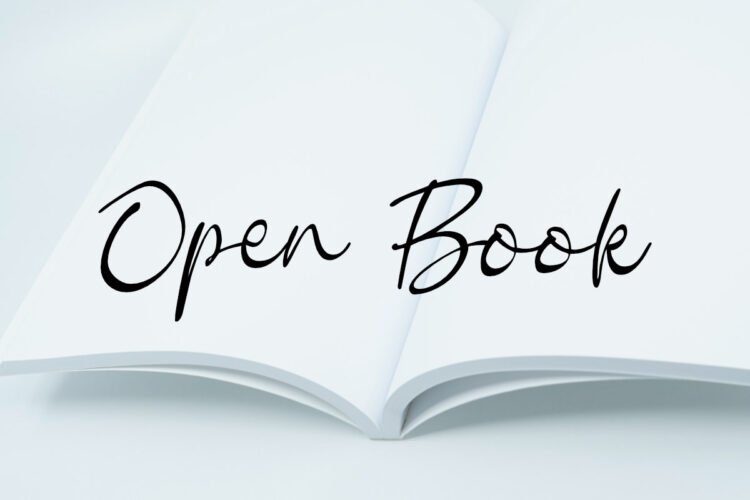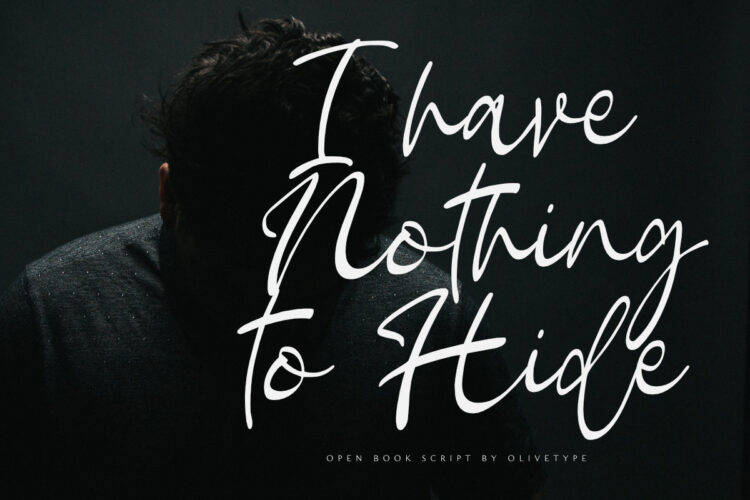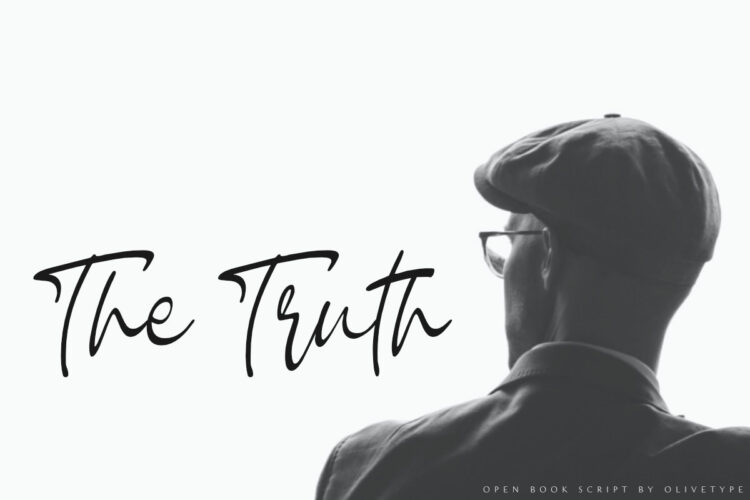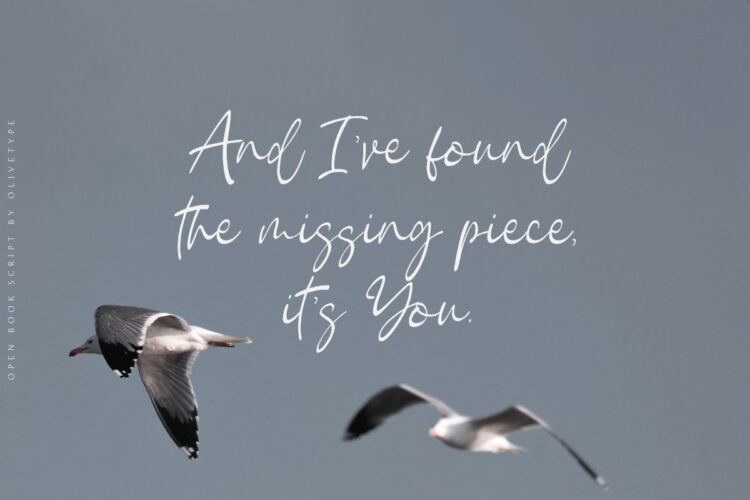
Open Book is a stylish and lovely script font. It is a nice choice for creating eye-catching logos, branding, and quotes.
This script font is supporting more than 66 languages, which include: Afrikaans Albanian Catalan Danish Dutch English Estonian Finnish French German Italian Norwegian Portuguese Spanish Swedish Zulu, and more.
- Basic Latin A-Z & a-z.
- Ligatures